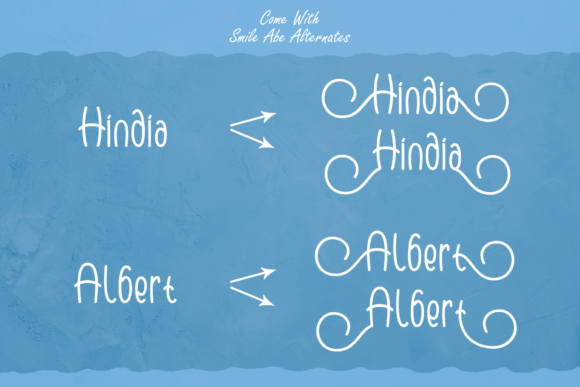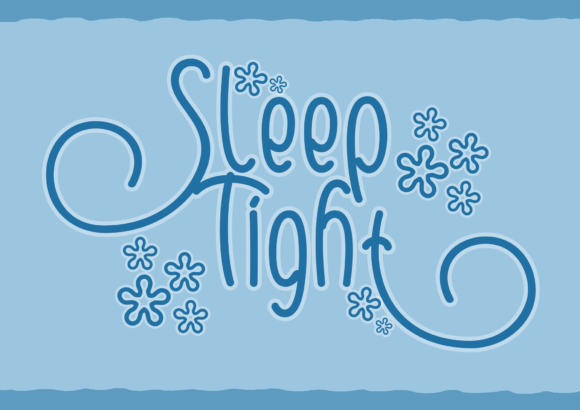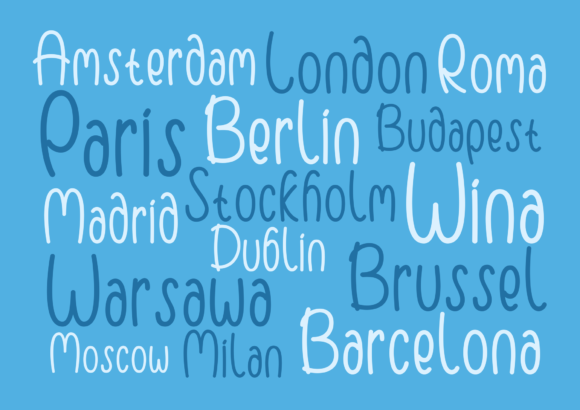
Introduction to Smile Abe Font
Smile Abe is a simple and quirky display font.
Its unique style makes this font look great in any context, whether it’s being used on busy backgrounds or as a standalone headline .
Key Features of Smile Abe Font